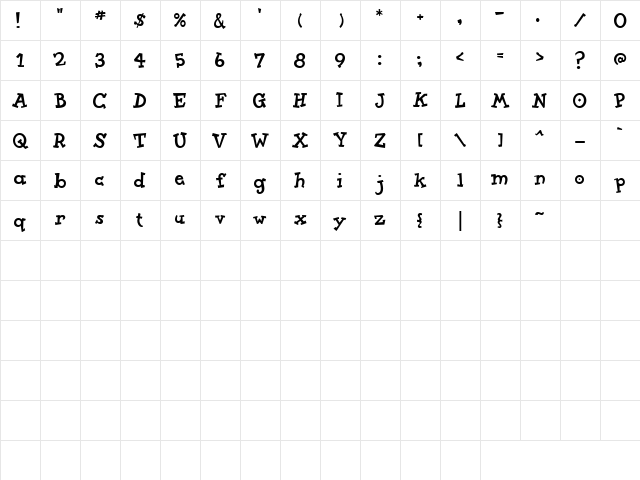
CK Tijuana Regular
Design Context for CK Tijuana
CK Tijuana is a composed and adaptable typeface that performs quietly and consistently across a wide range of design contexts.